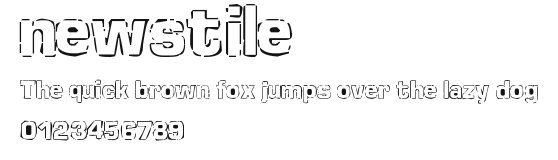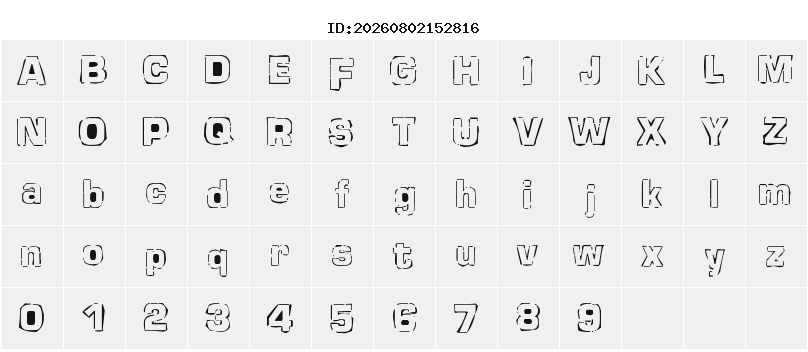
newstile Preview
• Font Name: newstile
• Full Font Name: newstile
• Version: Version 1.00 October 30, 2005, initial release
About newstile.ttf
newstile.ttf is a modern, elegant sans-serif font designed for ultimate readability and visual harmony. Perfect for branding, headlines, web design, and print materials.